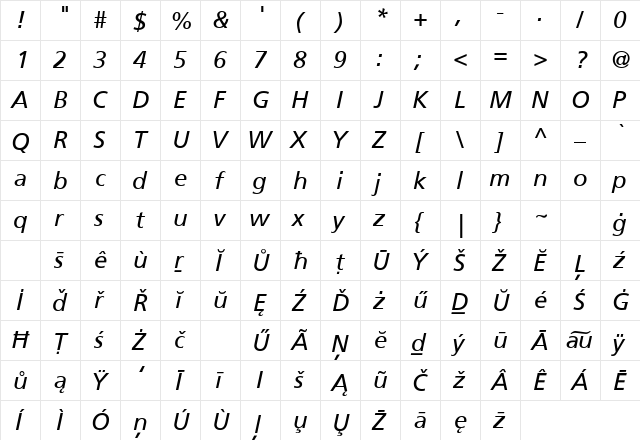
Frutiger SCIN It v.1 Italic
Design Context for Frutiger SCIN It v.1 Typeface
Frutiger SCIN It v.1 offers clean, dependable letterforms without strong stylistic allegiance, making it a practical choice for designers who need flexibility. The dynamic lean of this cut emphasises speed and emphasis in any layout.
Pro Tip: Try Frutiger SCIN It v.1 for annotation and caption copy alongside an upright companion — the contrast in angle creates a dynamic but ordered typographic system.